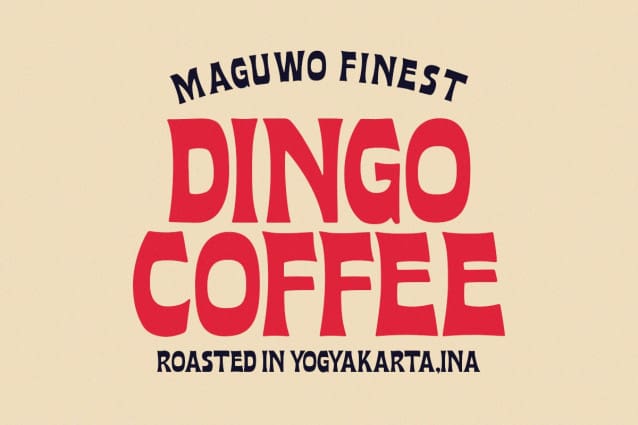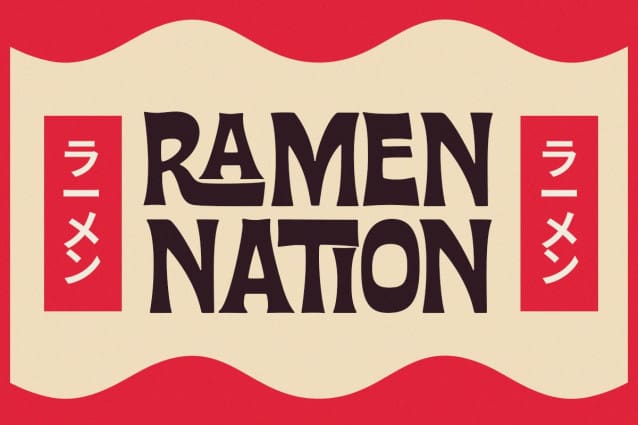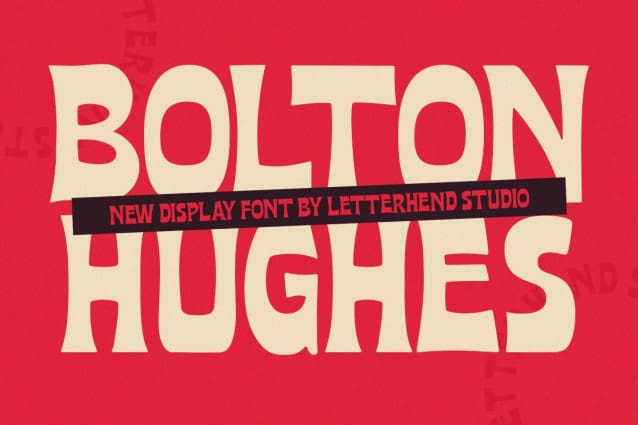
Bolton Hughes Font
Bolton Hughes Font is a bold handmade display font. This type of font perfectly made to be applied especially in logo, headline, signage and the other various formal forms such as invitations, labels, logos, magazines, books, greeting / wedding cards, packaging, fashion, make up, stationery, novels, labels or any type of advertising purpose.